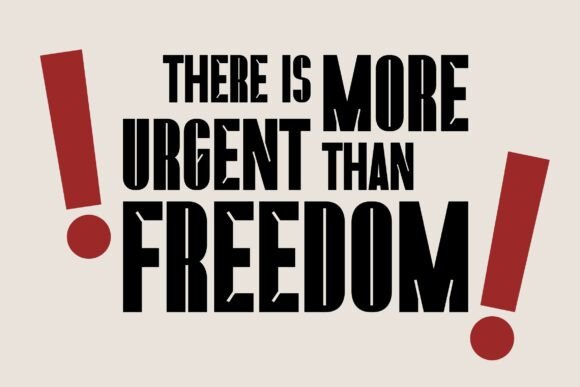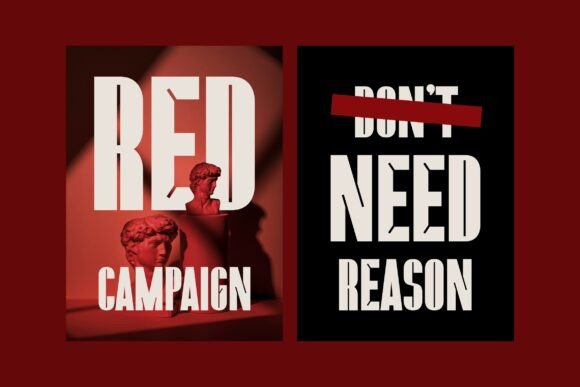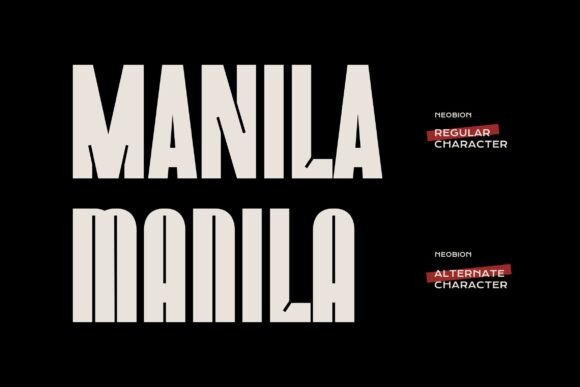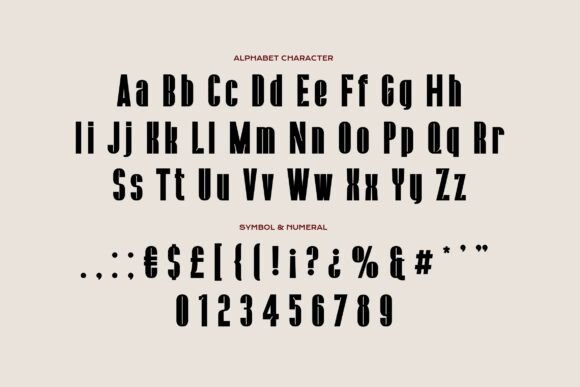
Introduction to Neobion Font
As a designer, there’s nothing quite like the thrill of bringing a creative project to life. It’s that moment when all the pieces come together, and your vision takes shape. For me, that moment often begins with the right font – a choice that sets the tone and direction for the entire project. And that’s where Neobion Font comes in, offering a bold, modern sans-serif display font that’s sure to make a statement.
With its striking combination of sharp incisions and clean lines, Neobion Font is the perfect choice for designers seeking a high-quality design resource that’s both sophisticated and commanding. Whether you’re working on a branding project, high-end editorial design, or innovative digital project, this versatile font provides a robust toolkit to craft dynamic, impactful typography that leaves a lasting impression.
Key Features of Neobion Font
- Unique characteristics: Geometric shapes and modern design elements make it perfect for futuristic and sci-fi themed projects
- Designed to be highly legible and versatile, suitable for a wide range of creative applications
Honest Review: Neobion Font
As a designer, I’m always on the lookout for high-quality design resources that can elevate my creative projects. The Neobion Font is a great addition to my collection, offering a unique and modern aesthetic that’s perfect for a variety of design applications.
- ✨ High-quality design: The Neobion Font is expertly crafted with precise lines and subtle nuances that give it a sophisticated look.
- ✨ Versatility: This font is suitable for a wide range of creative projects, from branding and marketing materials to digital products and web design.
While the Neobion Font is a great resource, I do have a few limitations to note:
- ⚠️ Limited character set: The font only includes a limited set of characters, which may not be sufficient for all design needs.
- ⚠️ Not suitable for complex typography: Due to its modern and minimalist design, the Neobion Font may not be the best choice for complex typography projects.
Overall, I’m impressed with the Neobion Font and would recommend it to designers looking for a high-quality, modern font for their creative projects.
For optimal results, use Neobion Font on a high-contrast background to make the text stand out. Experiment with different font sizes and styles to add visual interest to your design.
Neobion Font is ideal for creative projects, such as infographics, posters, and brochures. It’s also great for use in digital design, like website headers and social media graphics.
Is the Neobion Font a high-quality design resource?
Yes, the Neobion Font is a high-quality design resource, carefully crafted to provide a unique and elegant look for your creative projects. With its clean lines, modern style, and high-resolution design, the Neobion Font is perfect for designers who want to add a touch of sophistication to their work.